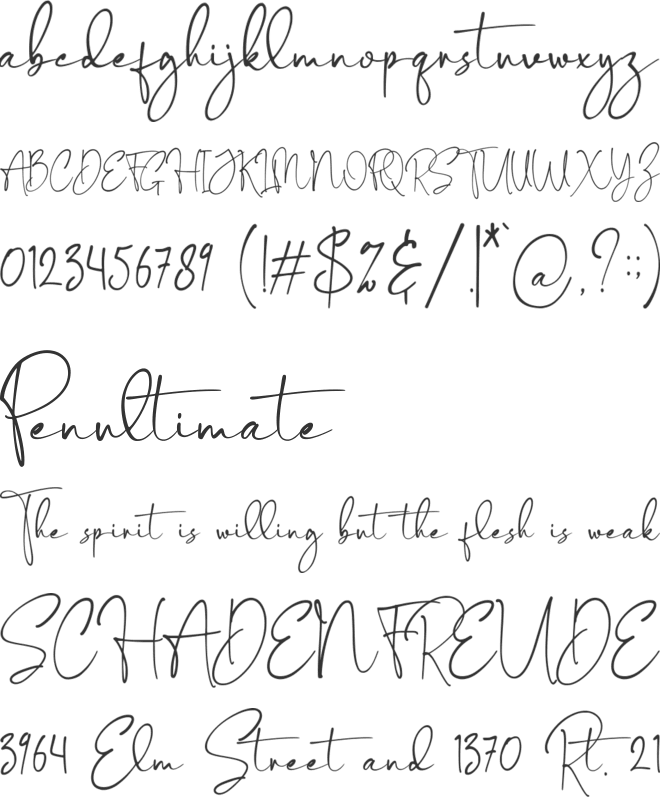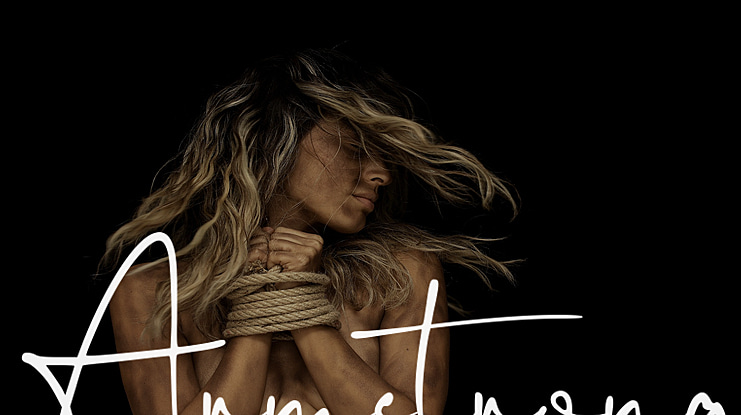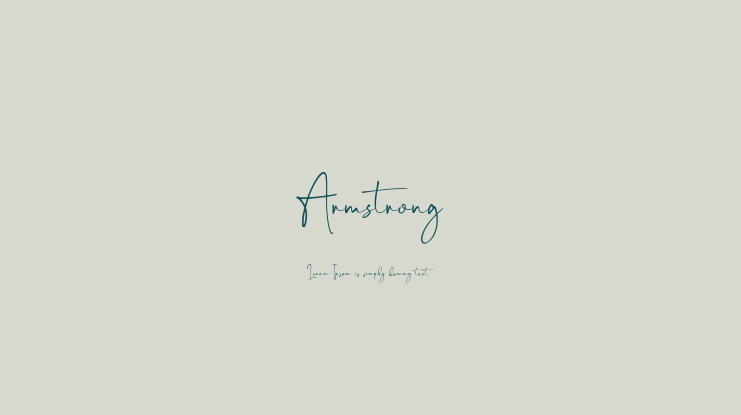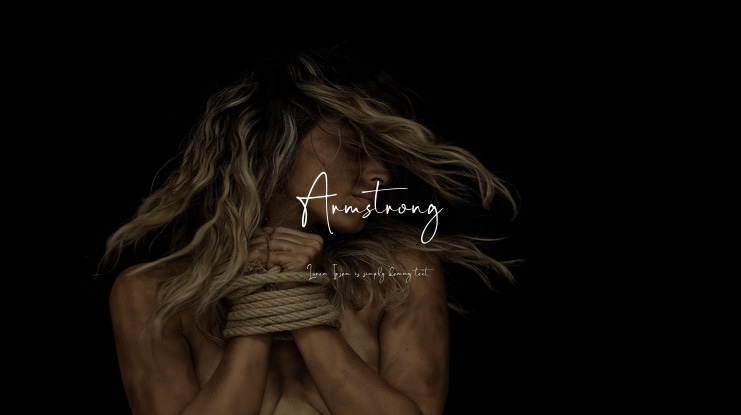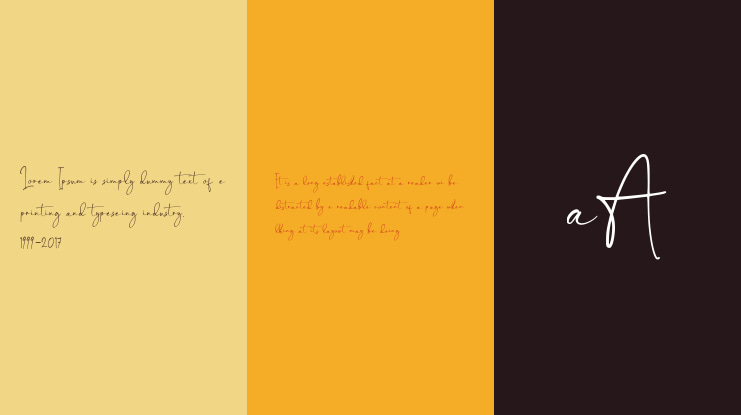
Armstrong Font
FatoniNurman
This is a sweet and cute signature font from designer ToniStudio. Armstrong can be used for products such as handcraft, product packaging, quotes, product design, craftsmen, lanels, photography, watermarks, logos & branding. Everything can be accessed using software that supports Opentype, such as Adobe Indesign, Adobe CS IIustrator, Adobe Photoshop CC, and Corel Draw.